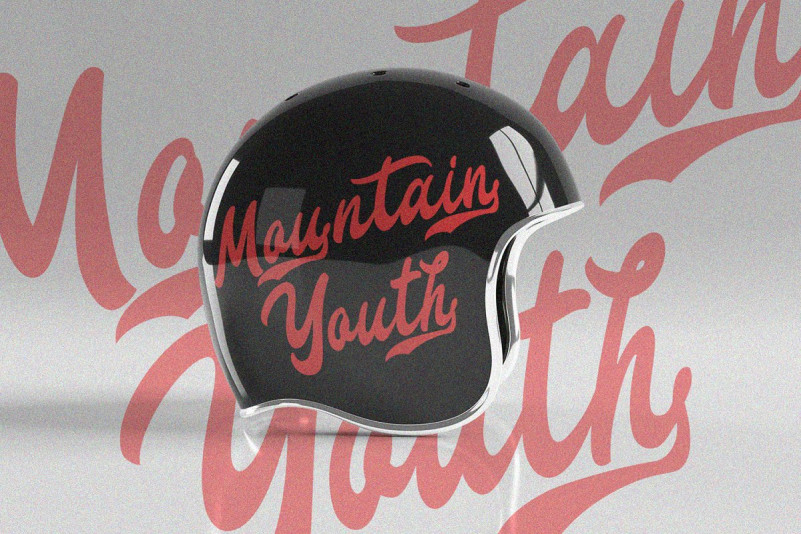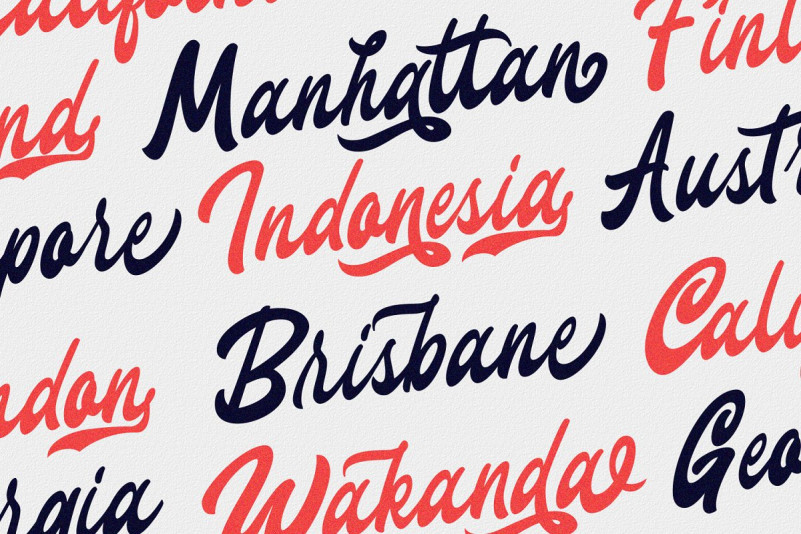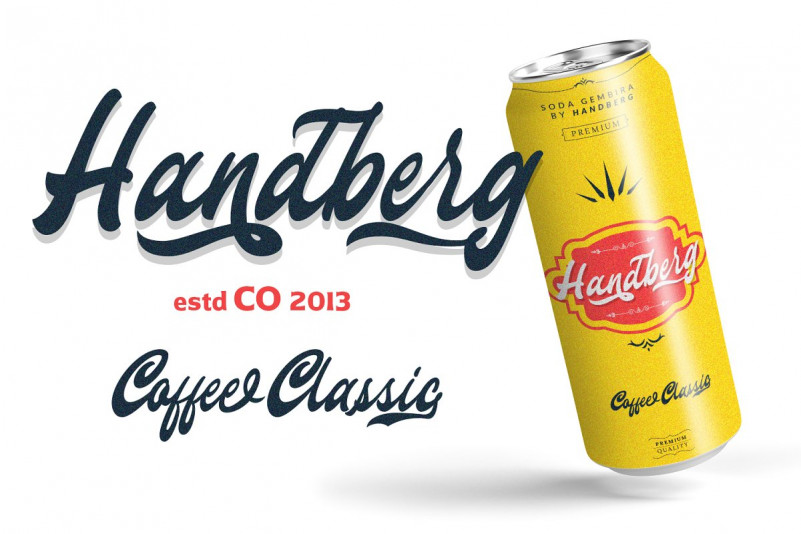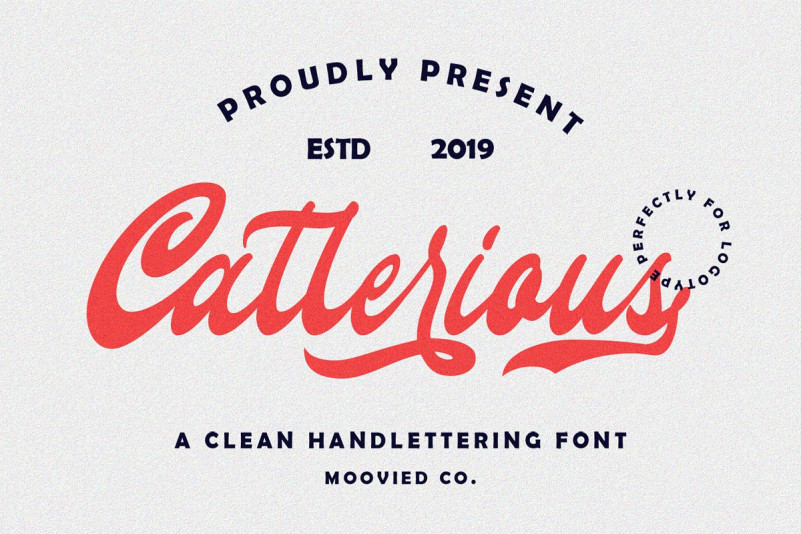
Callerious Script Font
Callerious Script Font – Free Demo
Start a new day with a clean handlettering font. Introducing Callerious Handlettering Font. Callerious designed and shared by Moovied Co.. Callerious Script Inspired by urban, streetwear and vintage made with love handlettering style. Ideal for branding, logos, handwriting quotes, product packaging, headers, posters, merchandise, social media Books / Cover titles, special events, etc.